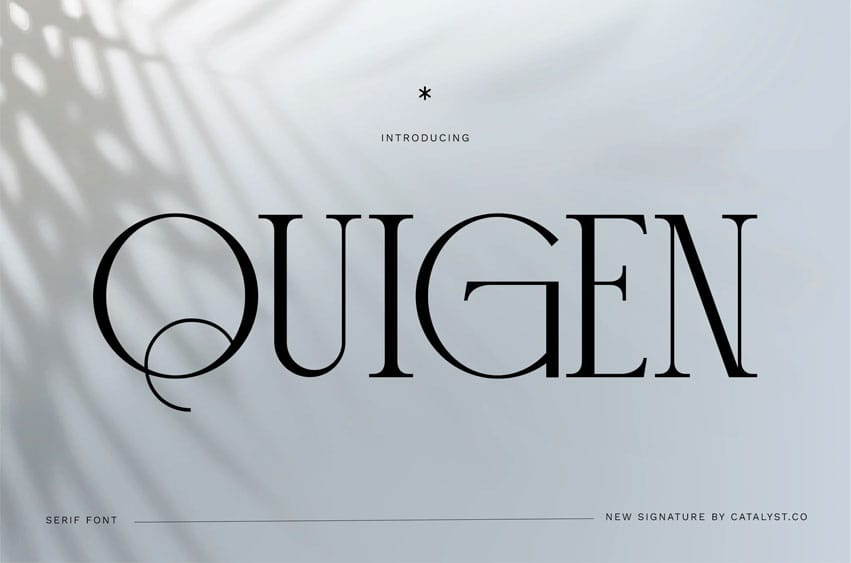
Quigen Font is a refined modern serif typeface that blends high contrast strokes with elegant proportions and crisp detailing. Featuring tall x-heights, slender stems, and gracefully tapered serifs, Quigen is crafted for luxury branding and editorial sophistication. Its classic letterforms are enhanced with stylish alternates and a balanced rhythm, making it suitable for both display and text settings.
With full support for uppercase, lowercase, numerals, punctuation, and multilingual characters, Quigen is optimized for premium print and digital design, requiring both beauty and legibility.